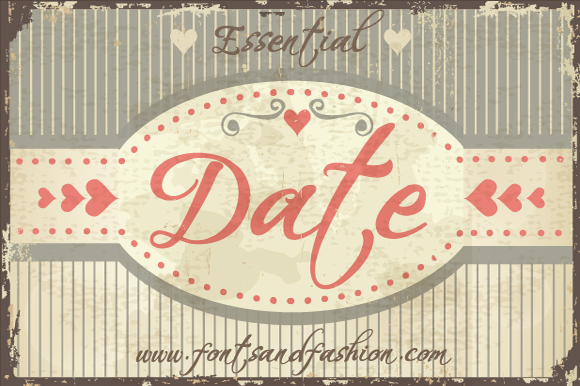
Whispers Font
db-ku.com - Script & Handwritten -- Whispers is a delicate, cursive and elegant handwritten font. It is ideal for holiday-themed greeting cards and for any crafting project that requires a romantic touch.